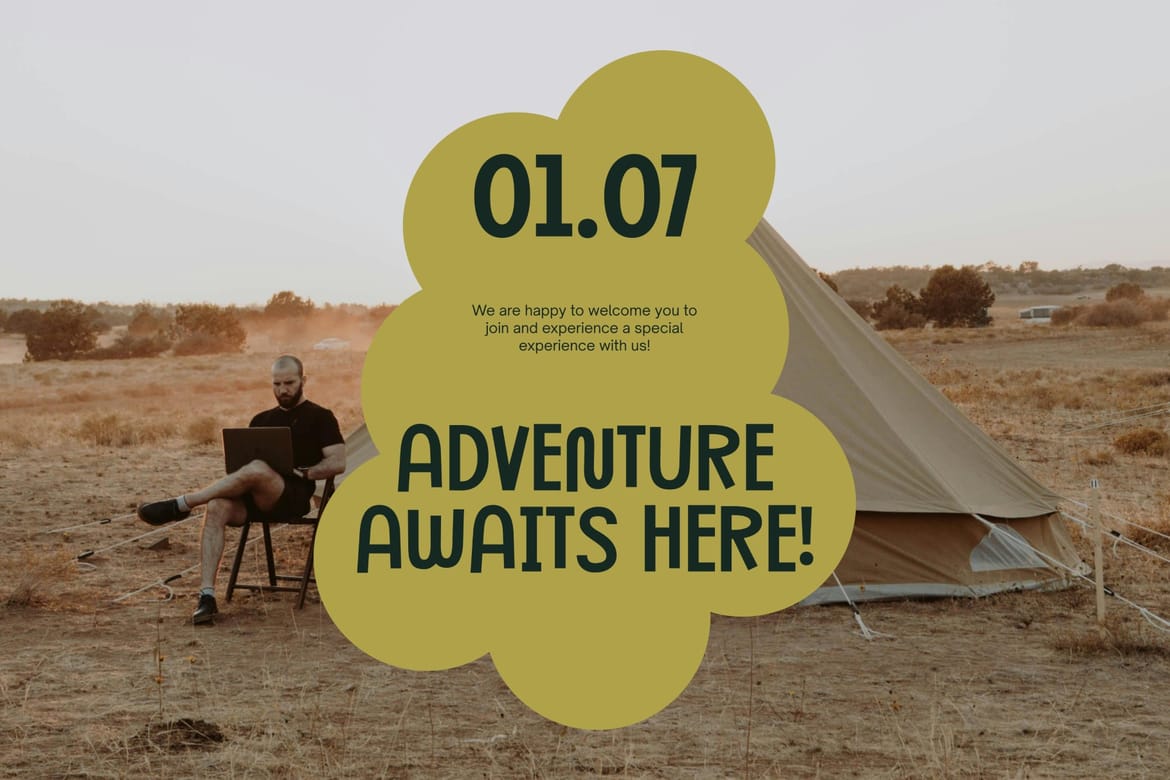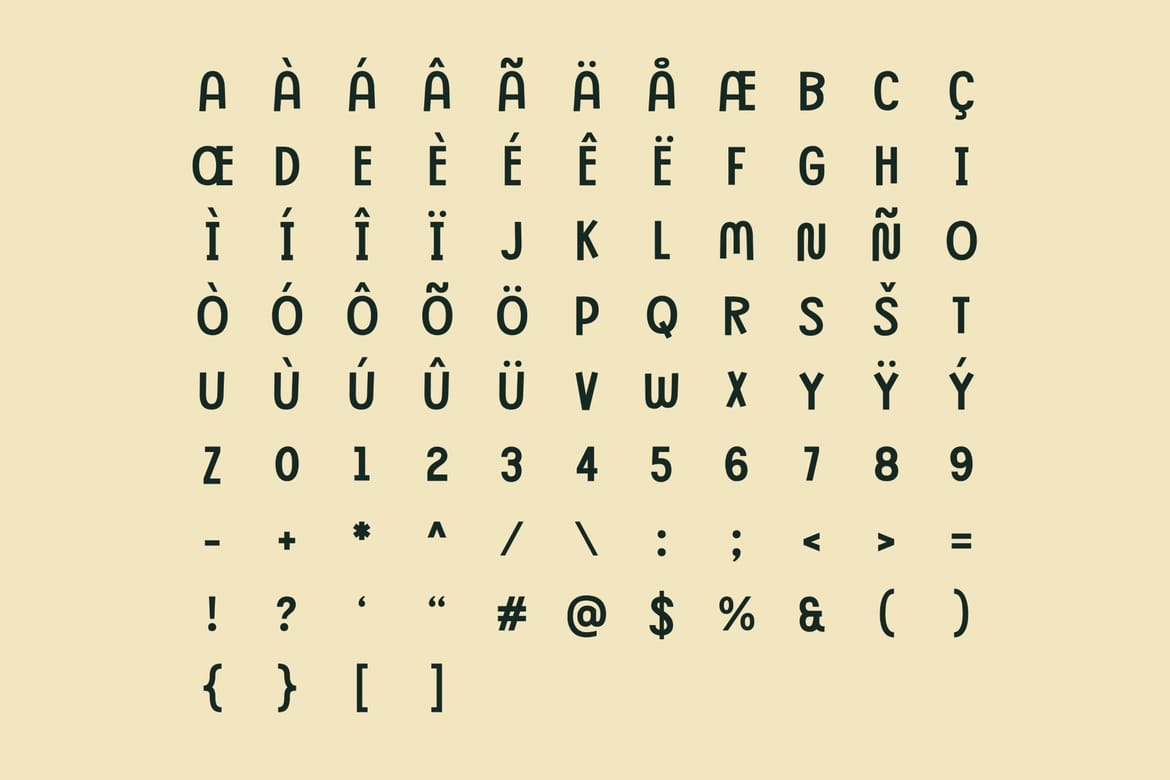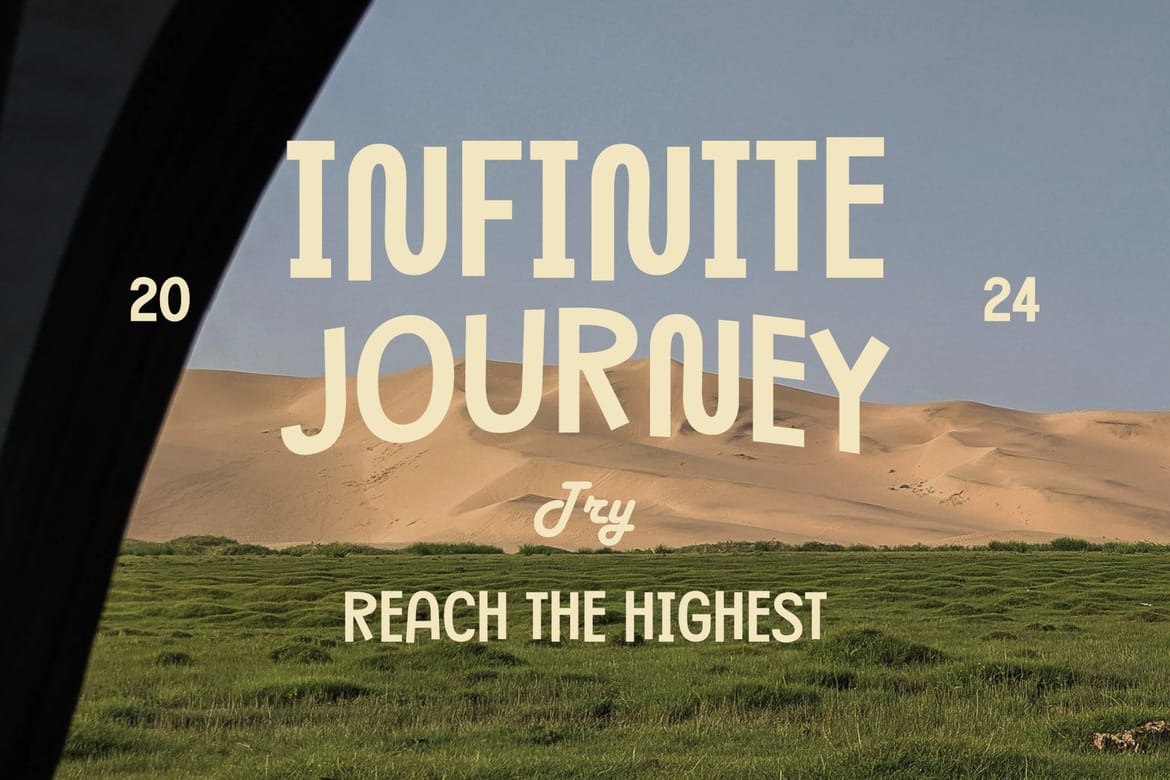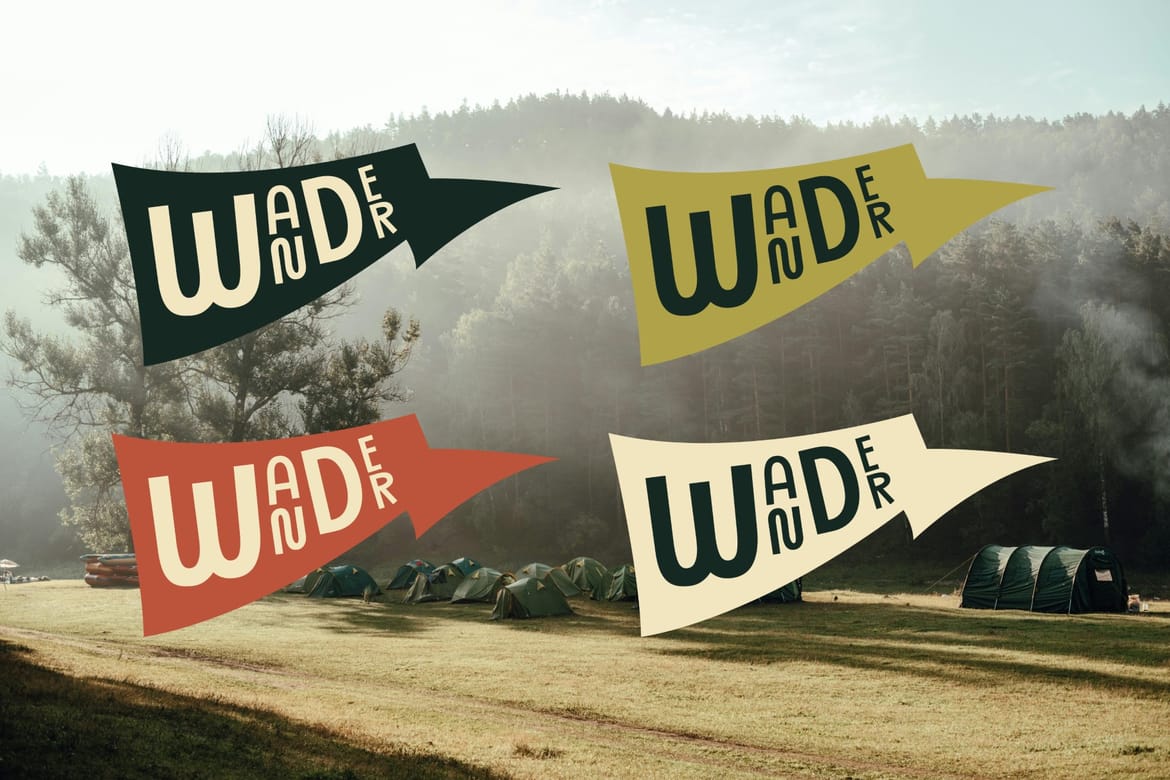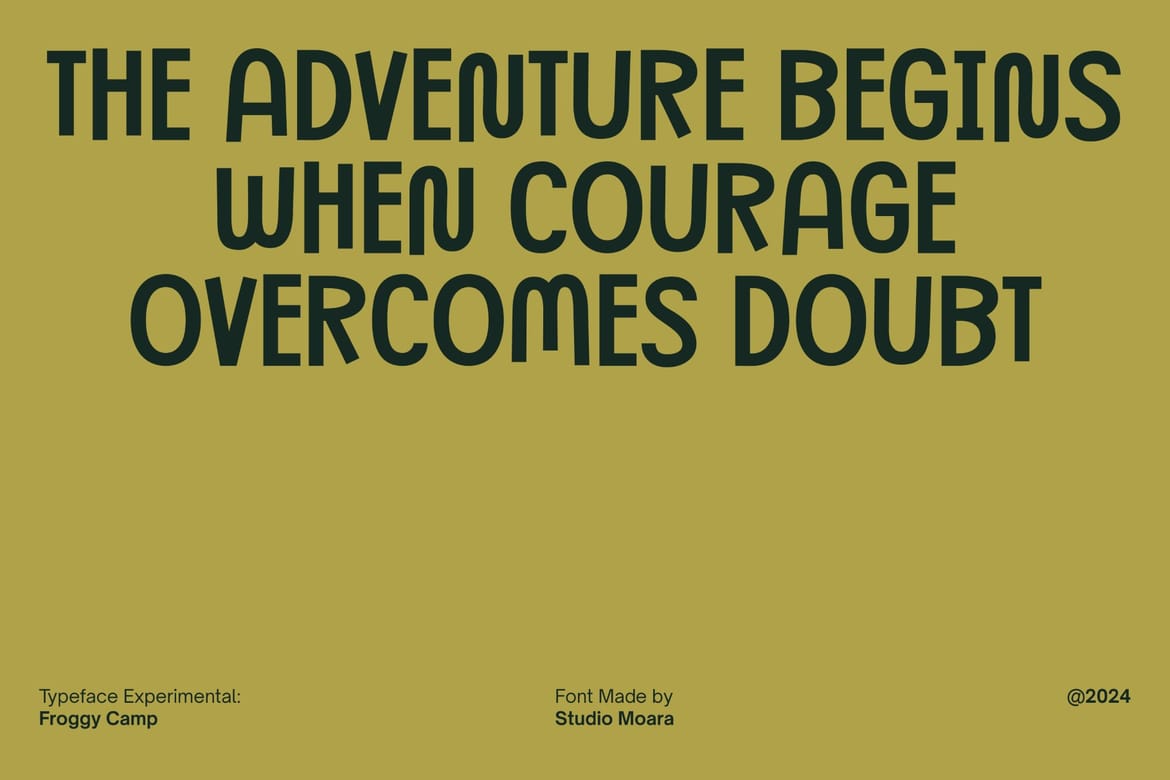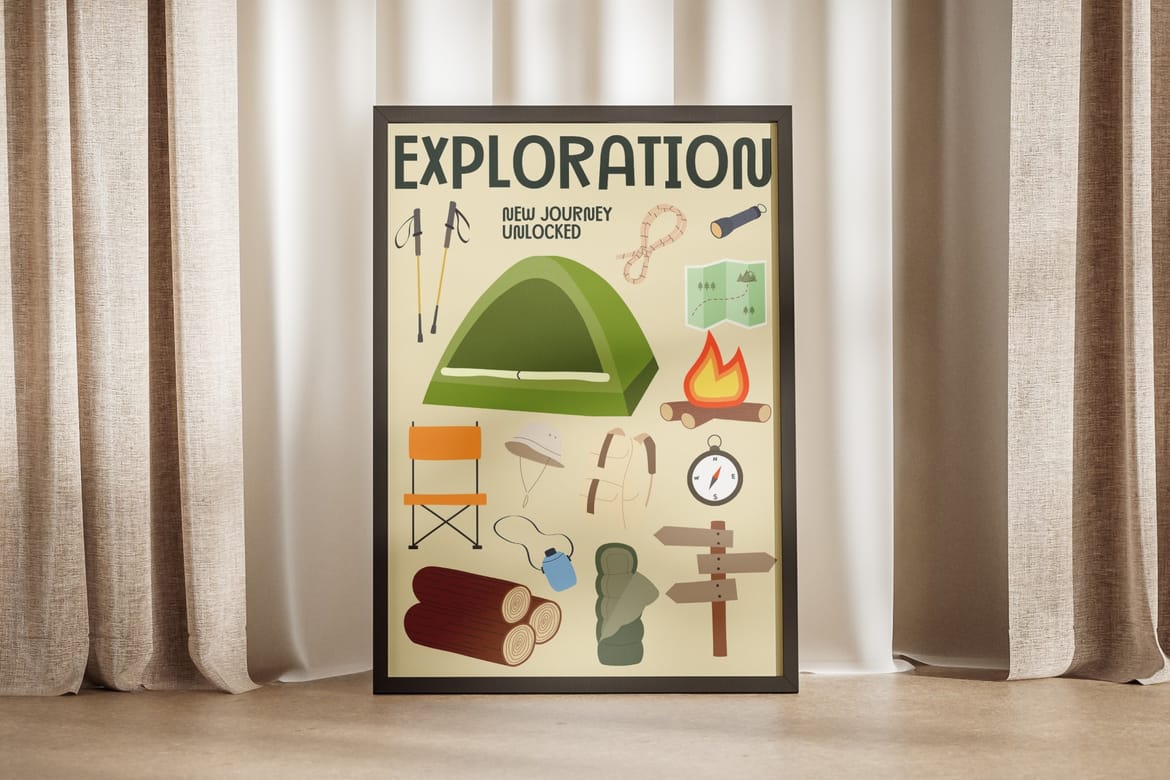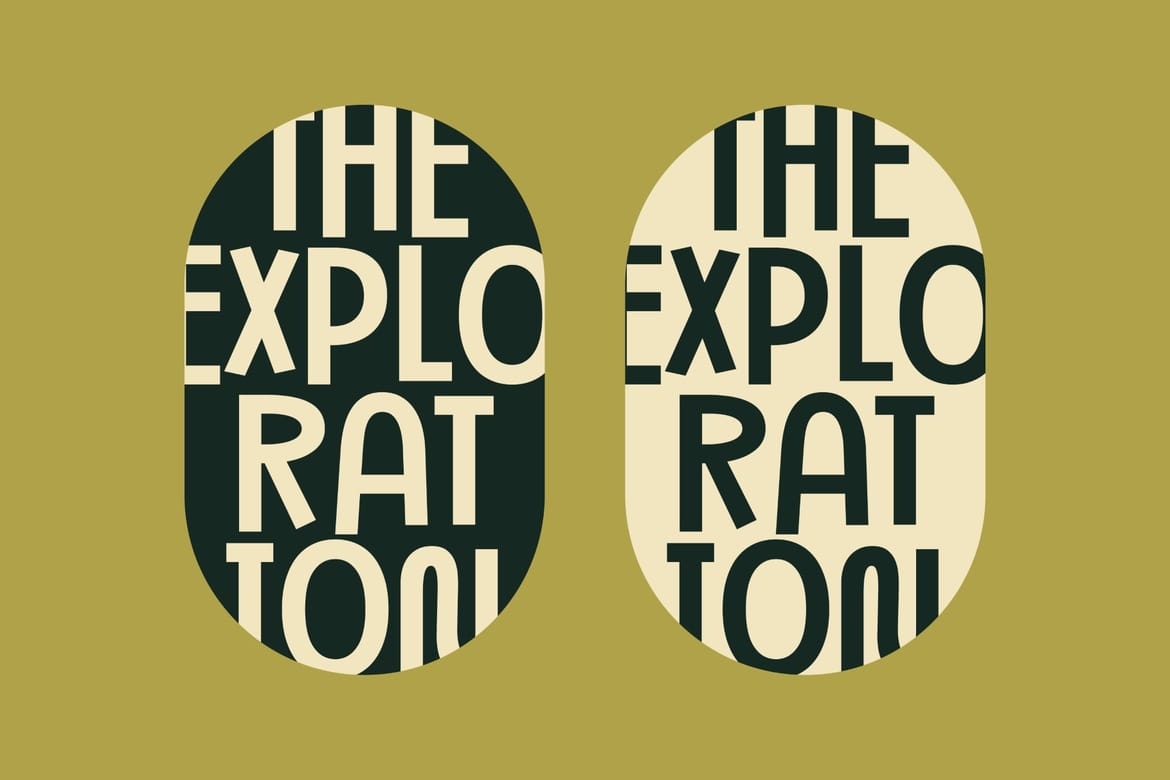
Froggy Camp Fonts is a versatile typeface combining a modern, clean design with a playful, retro vibe. Perfect for branding, posters, and social media, this font adds personality to any project. Its smooth curves and simple elegance make it ideal for creative professionals looking to make a bold and stylish statement.
Minimal modern sans-serif with a clean natural feel
Perfect for outdoor brands, camping products, and lifestyle packaging
Slim rounded letterforms create a calm approachable look with strong readability